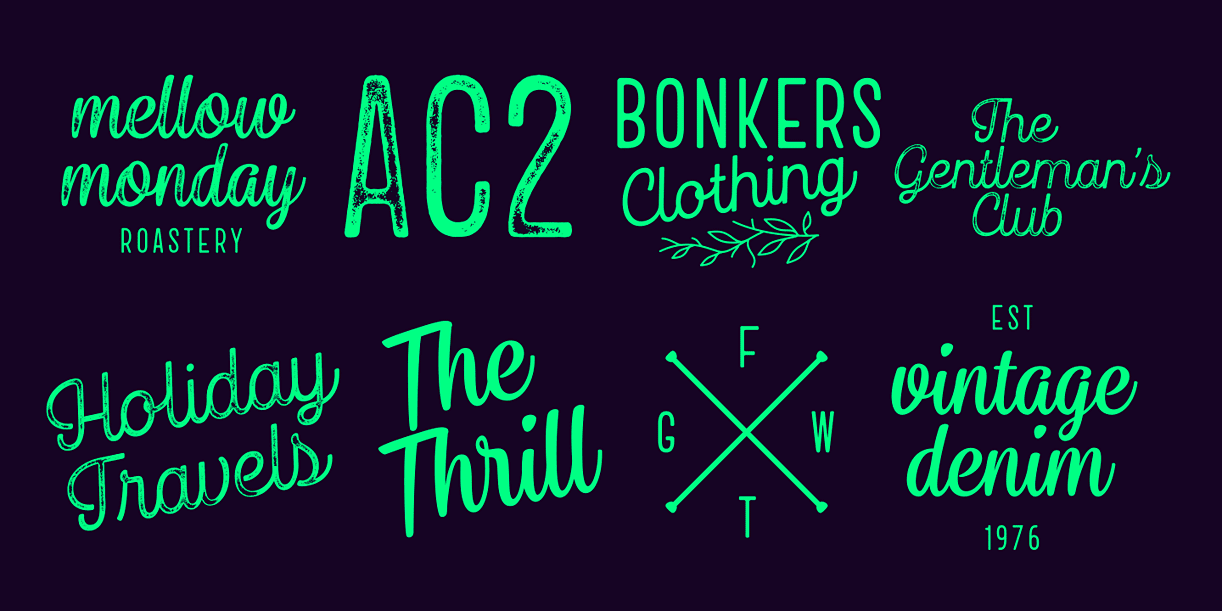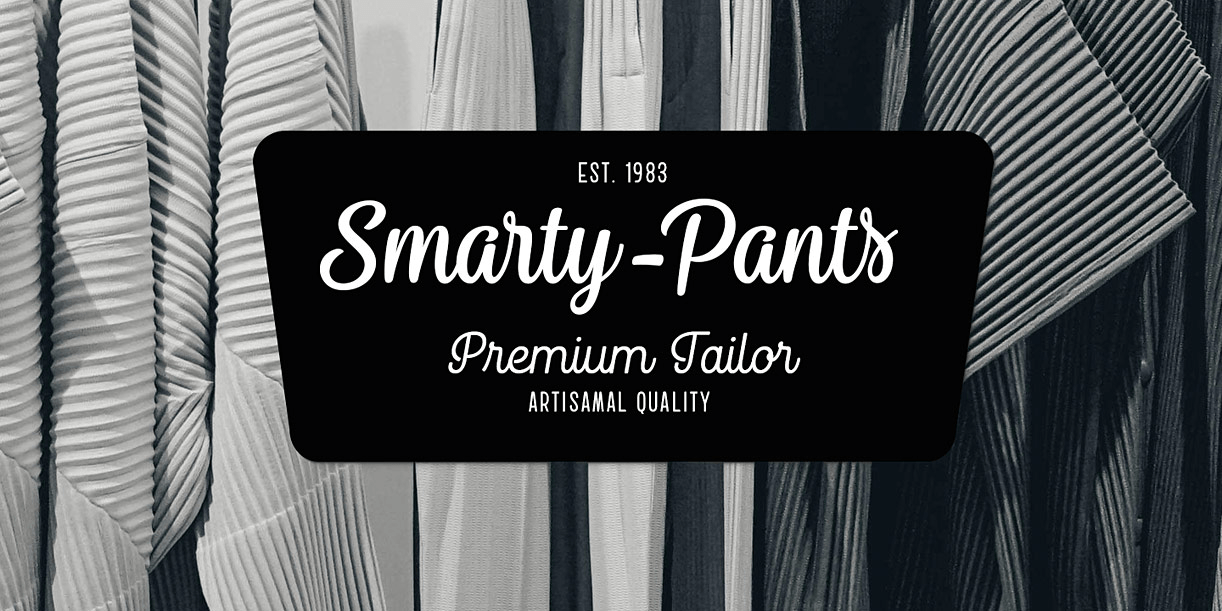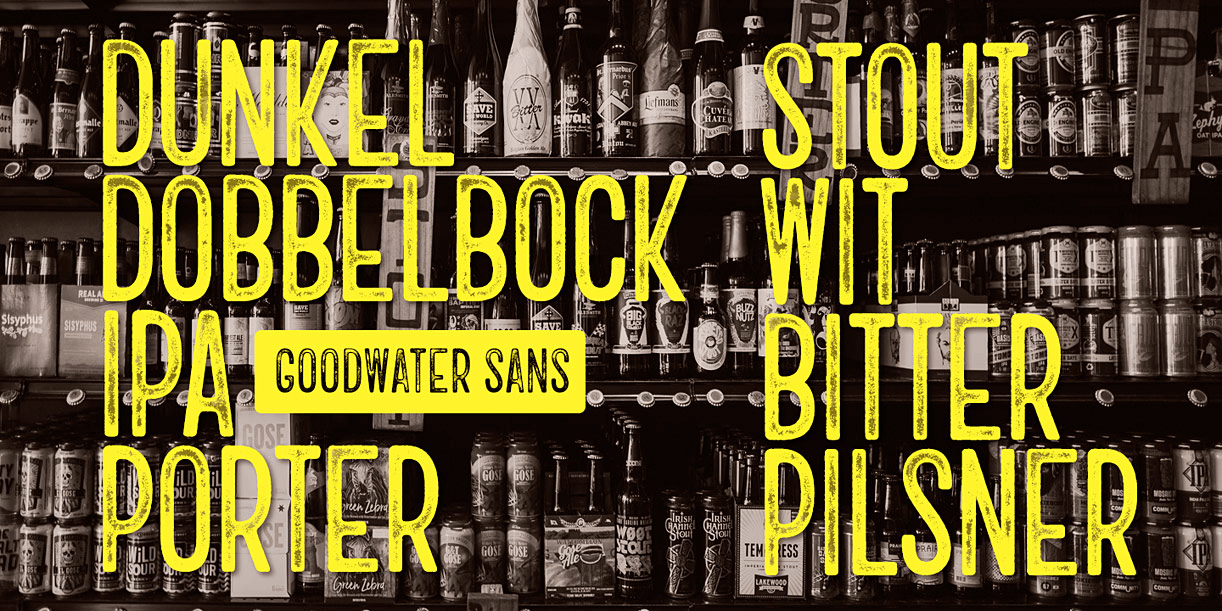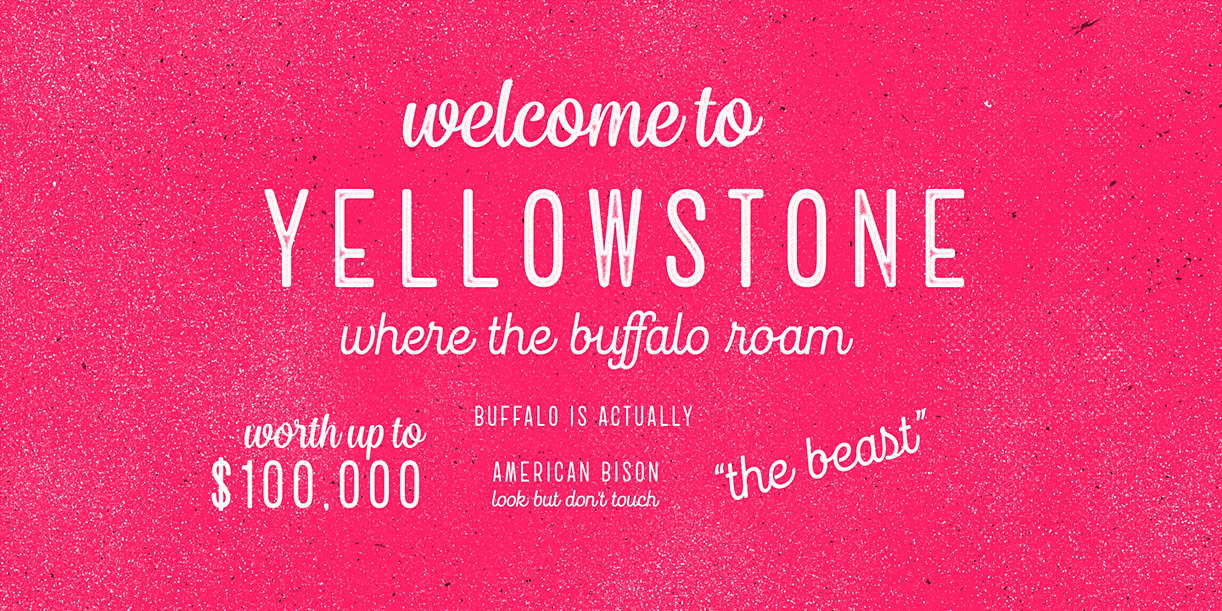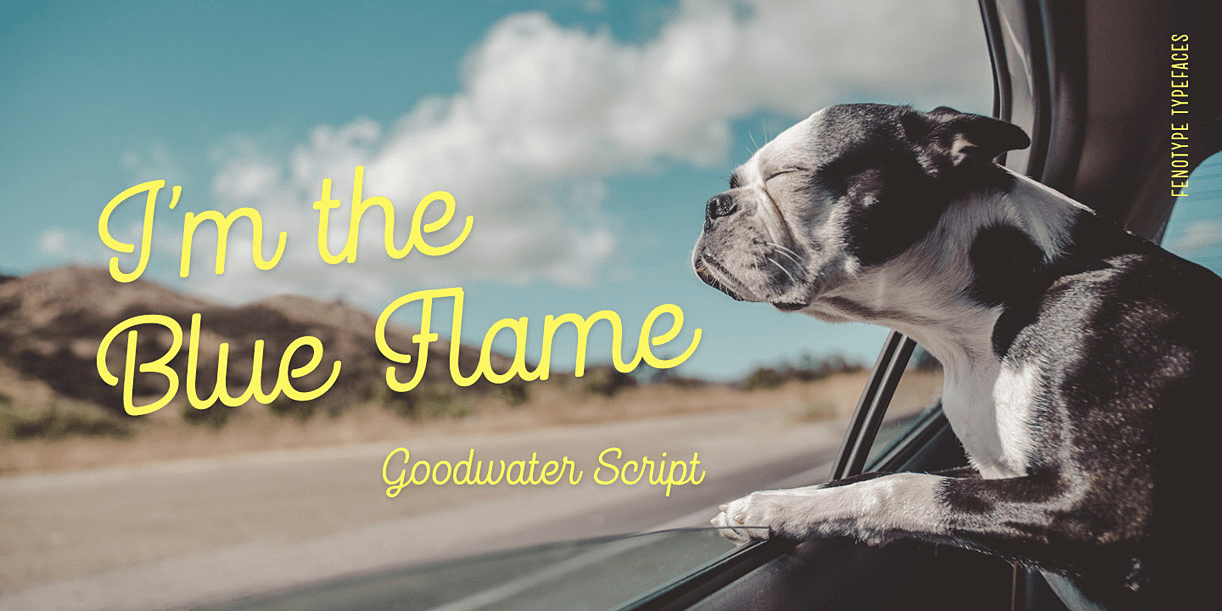
Goodwater is an original collection of a Brush, three weights of a monoline Script and four weights of condensed Sans typeface. Goodwater also has a ?Print? version with rugged outline and worn-out texture of each font. Goodwater is a great pack for…